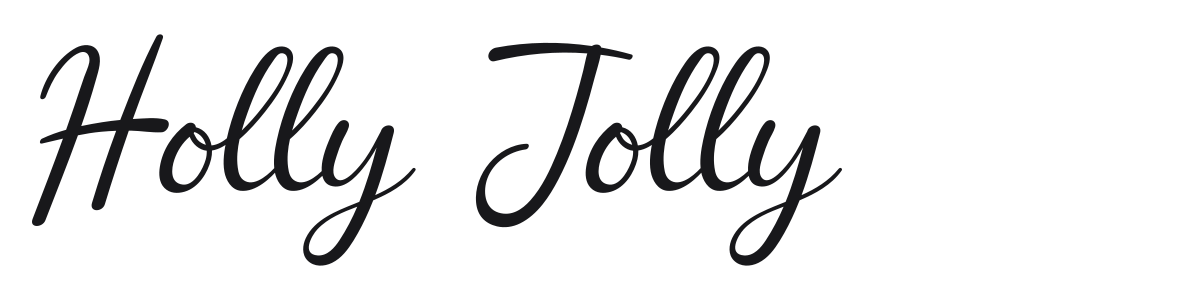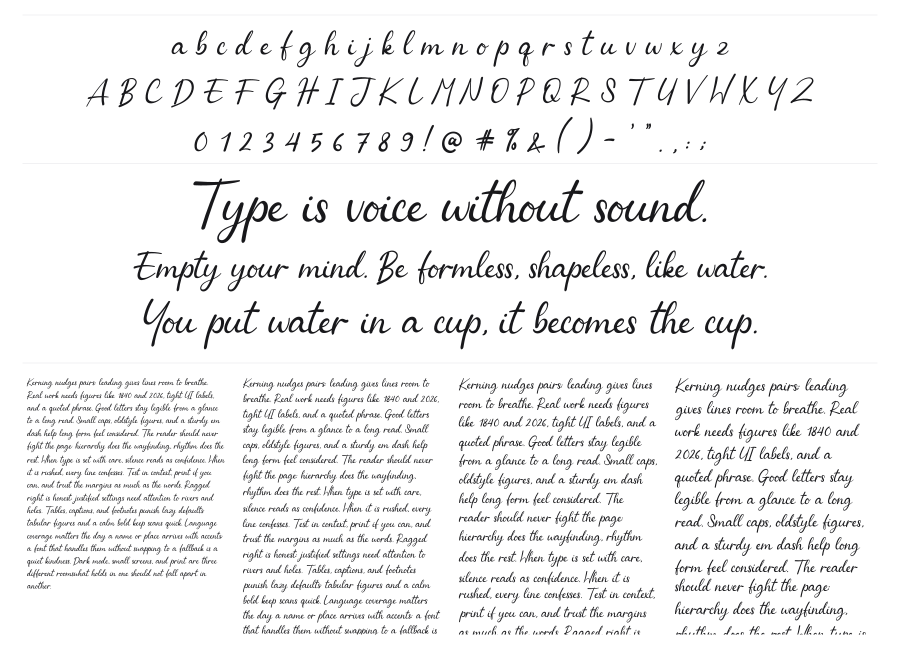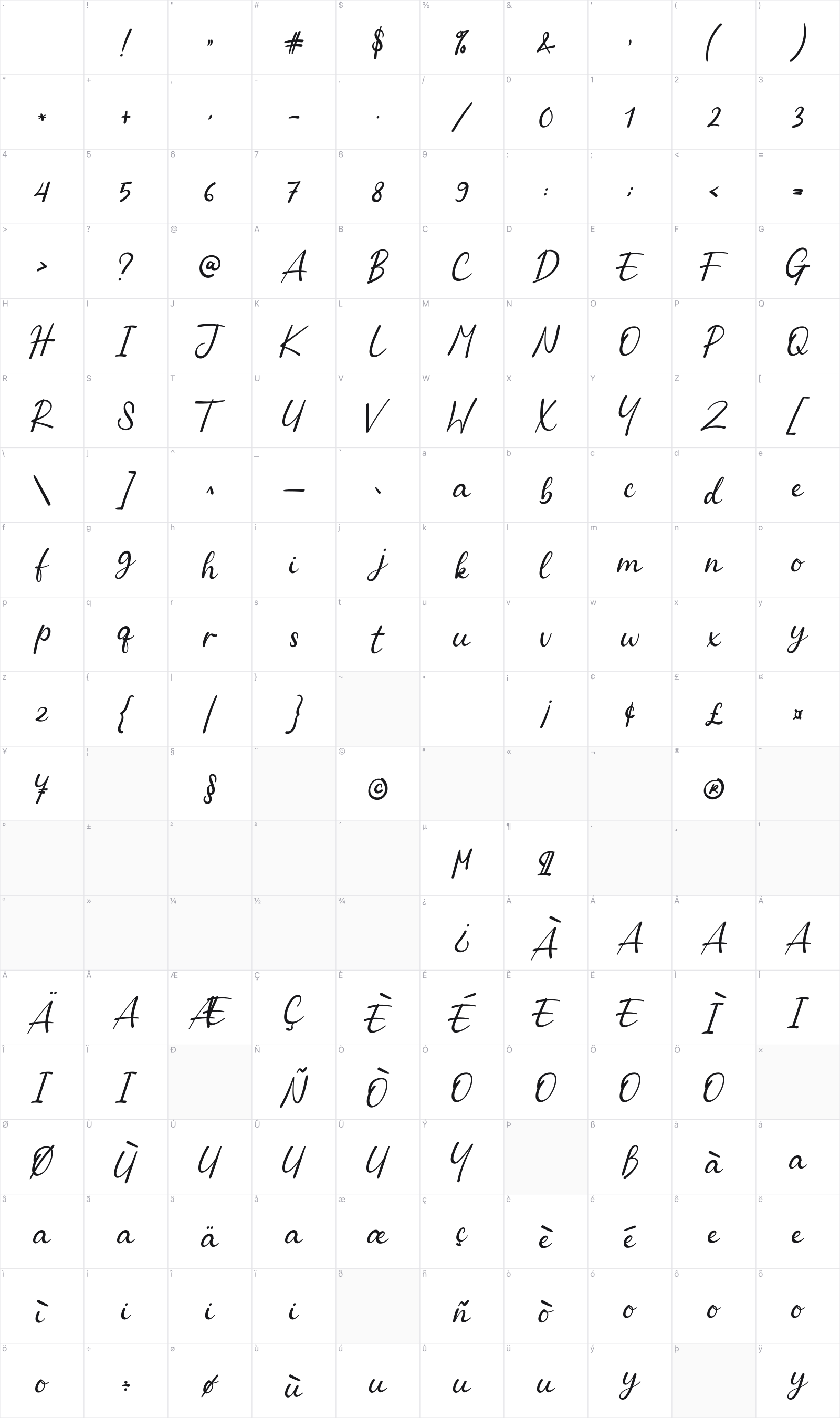
Holly Jolly
Holly Jolly is a casual connected script with flowing strokes and graceful looping ascenders that give it a lively, handwritten warmth. The moderate stroke contrast between downstrokes and hairline connectors keeps it feeling calligraphic without tipping into stiffness. It suits invitations, branding, and seasonal packaging where an approachable elegance is the goal.